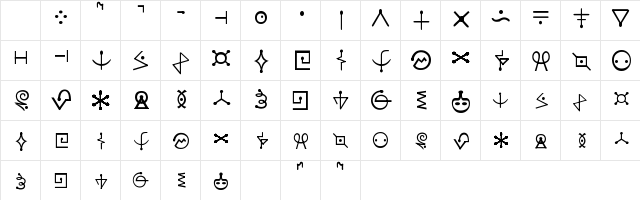
Complete Futurama Alien Alphabet One Regular glyph index. Displaying only characters natively supported by Futurama Alien Alphabet One Regular font.
Futurama Alien Alphabet One has a distinctly futuristic character, with geometric precision and clean angles that feel at home in technology, gaming, and sci-fi contexts.